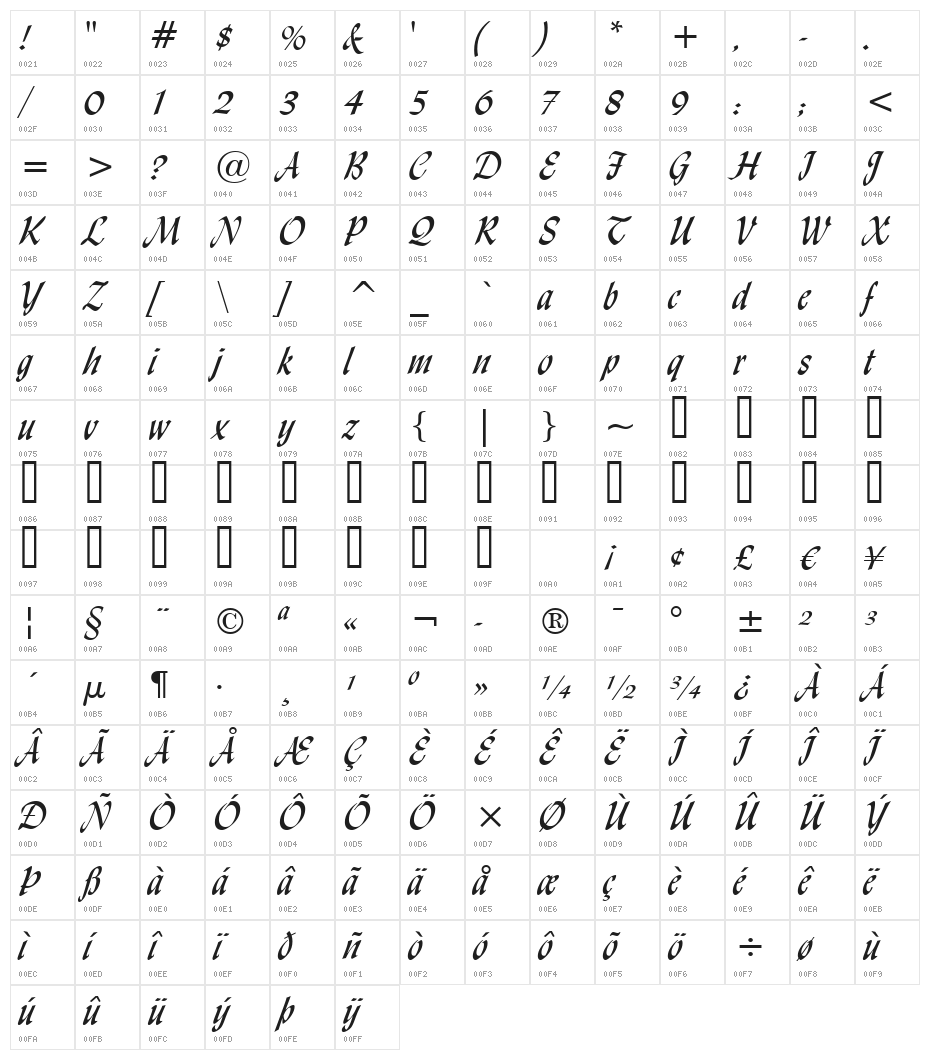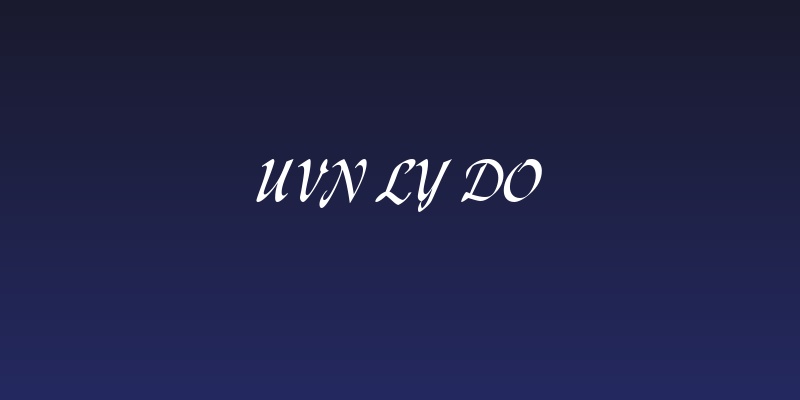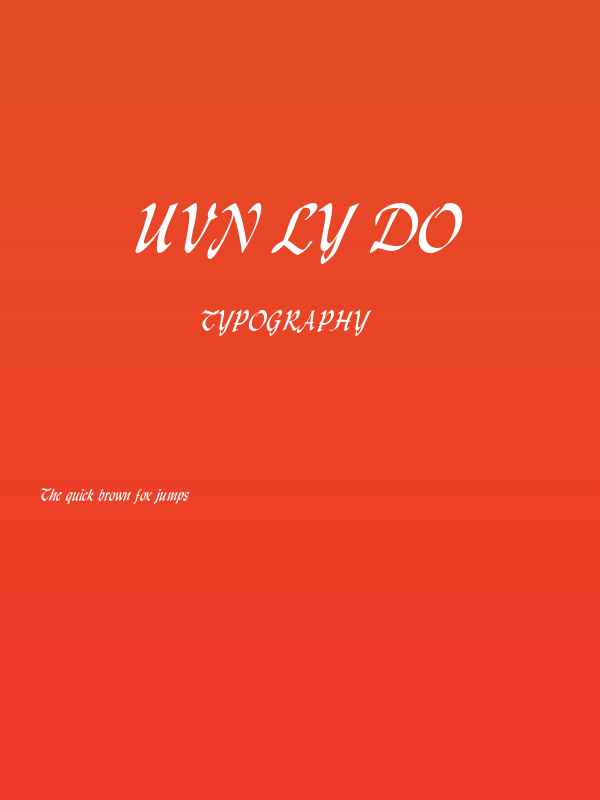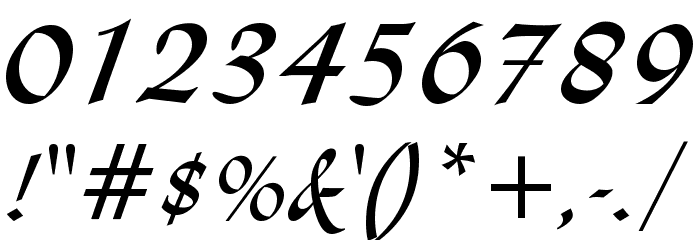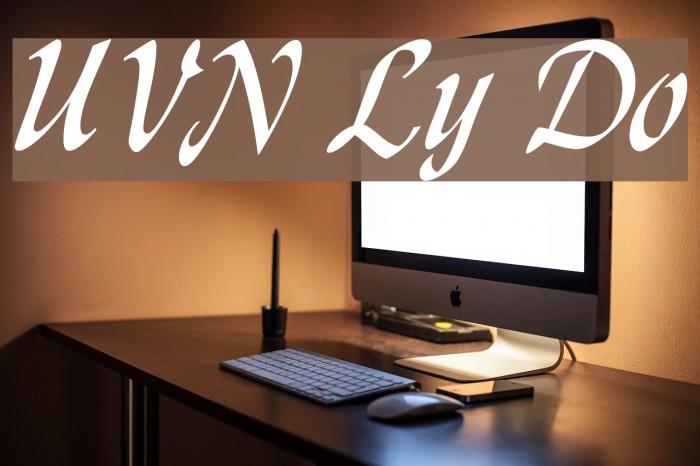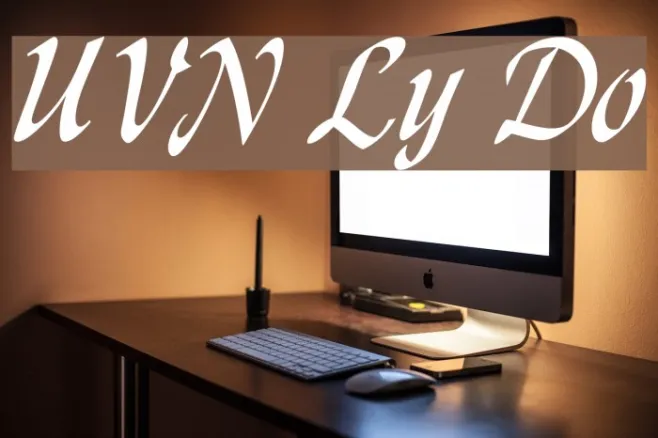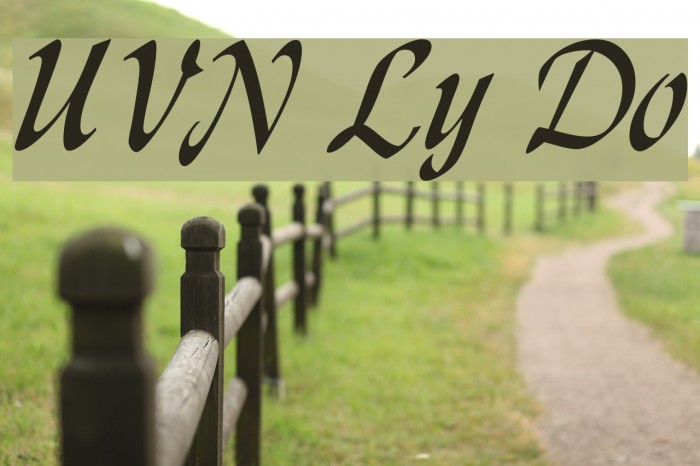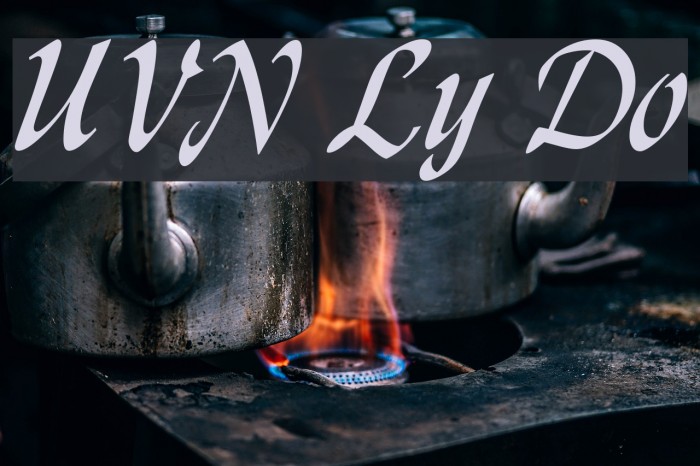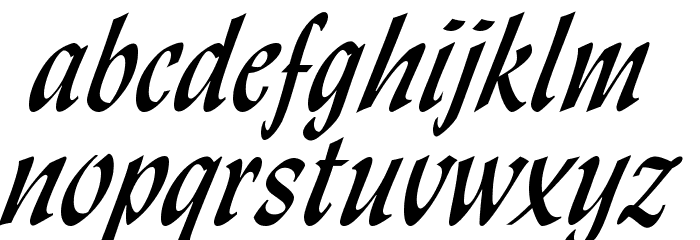
UVN Ly Do Font
UVN Ly Do Description
This font features a dynamic and elegant script style, characterized by its flowing, cursive letterforms. The uppercase letters exhibit a dramatic flair with sweeping curves and sharp angles, while the lowercase letters maintain a smooth, connected appearance. The numerals are bold and slightly slanted, matching the overall cursive theme. Special characters are designed with the same attention to detail, ensuring consistency across the font. The font's design is reminiscent of traditional calligraphy, offering a sense of sophistication and artistry.
| Proposed Projects | Ideal for wedding invitations, elegant branding, greeting cards, and decorative headlines. |